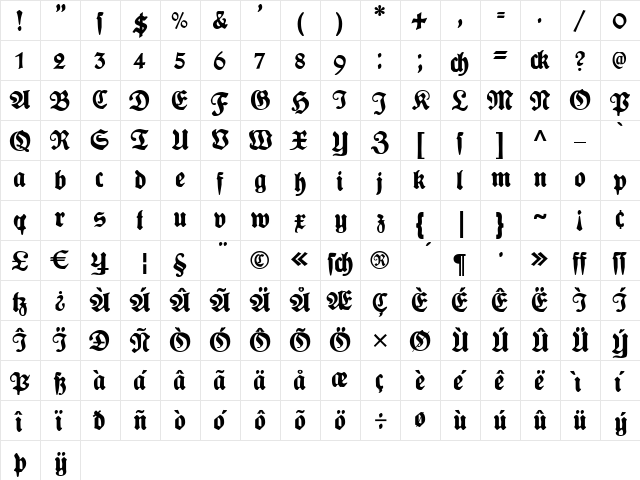
Plakat-Fraktur Black
| Designer | Dieter Steffmann |
Design Context for Plakat-Fraktur Typeface
Plakat-Fraktur channels the dramatic heritage of Fraktur and Gothic scripts, bringing a sense of historical gravitas to any design.
A natural fit for music packaging, gothic editorial design, and any project that needs historical weight.
Font Pairing: Pair with a clean neutral sans-serif for body copy to let Plakat-Fraktur's character lead without overwhelming the composition.
Pro Tip: Reserve Plakat-Fraktur for display and logo use — pair it with a clean sans-serif for body copy to prevent the composition from feeling oppressive.